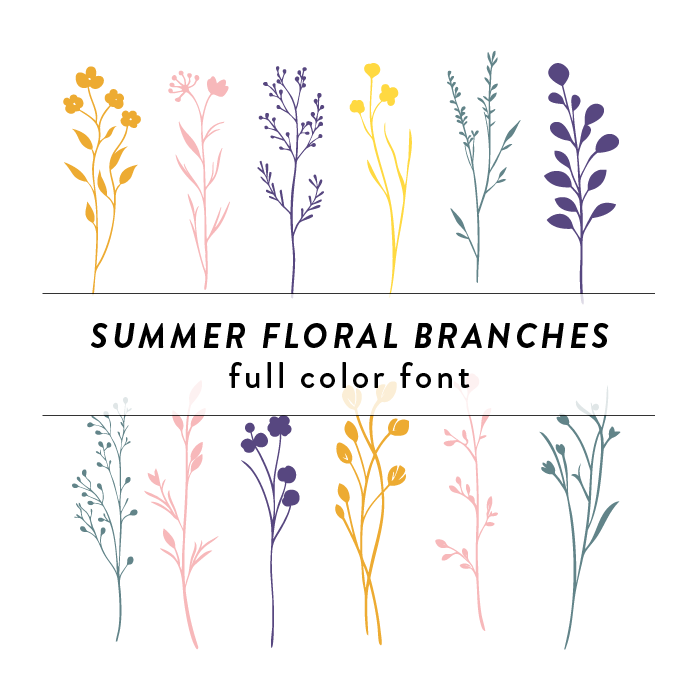
Summer Floral Stems Full Color Font is a vibrant and playful font design featuring intricate floral patterns in full color. Perfect for summer-themed projects, this font adds a whimsical touch with its detailed floral stems. Ideal for craft projects, invitations, and any design that calls for a touch of nature and color. This font is a OTF craft font that will appear in color only when used with the silhouette software.